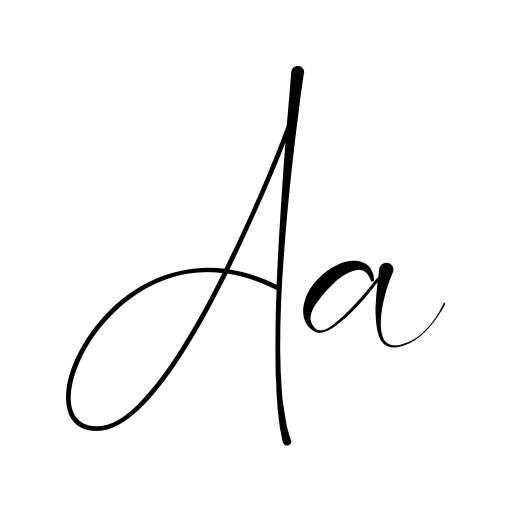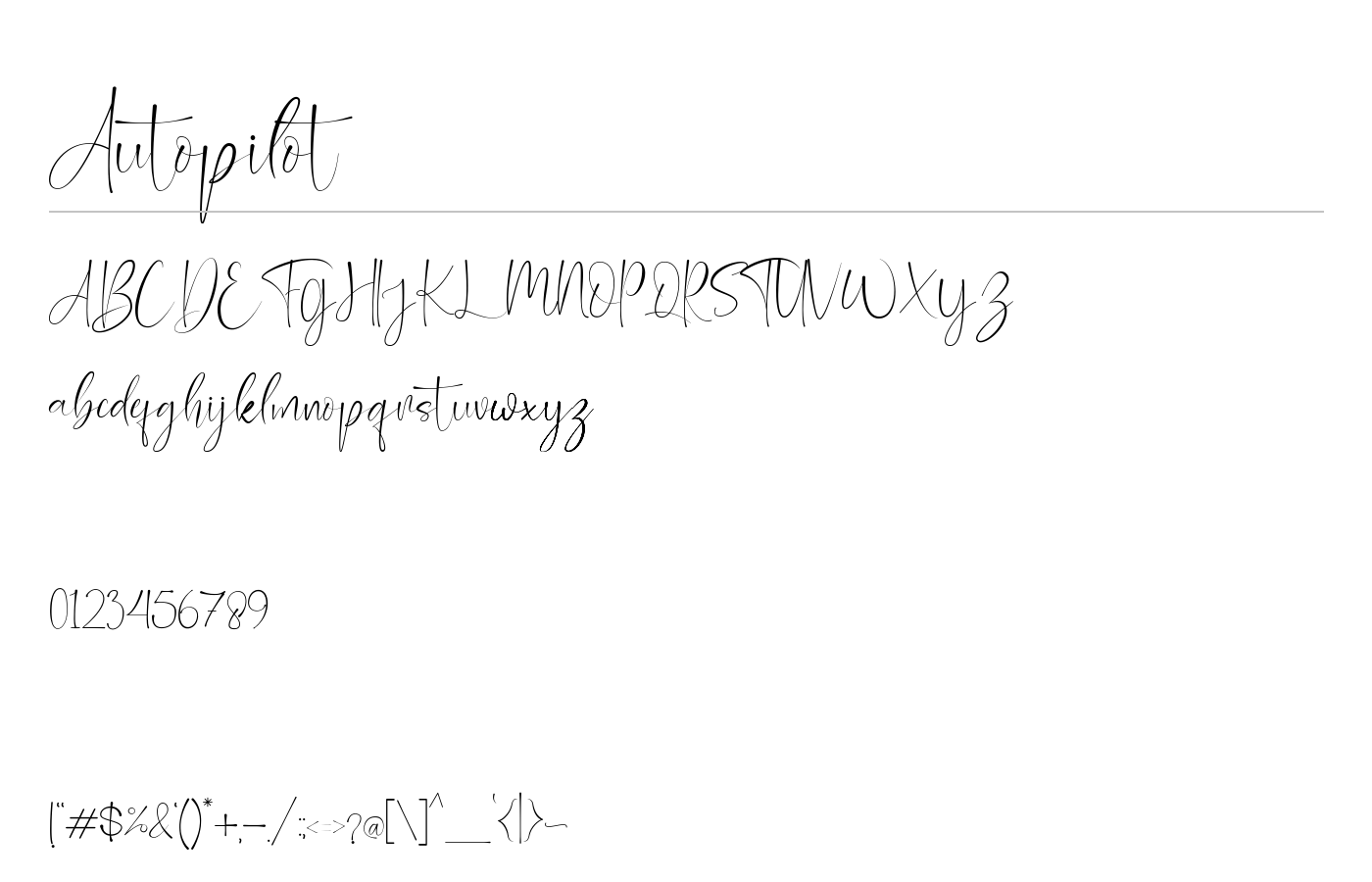
Autopilot is a delicate, handwritten script font characterized by slim, flowing strokes that exude elegance and a modern, personal touch. Its tall x-height and airy spacing create a light, graceful feel, making it perfect for stylish branding, invitations, and feminine designs that want to convey sophistication with a casual, handwritten charm. This font works best in headlines and decorative contexts where its unique, artistic flair can truly shine.
Autopilot Font
About Autopilot Font